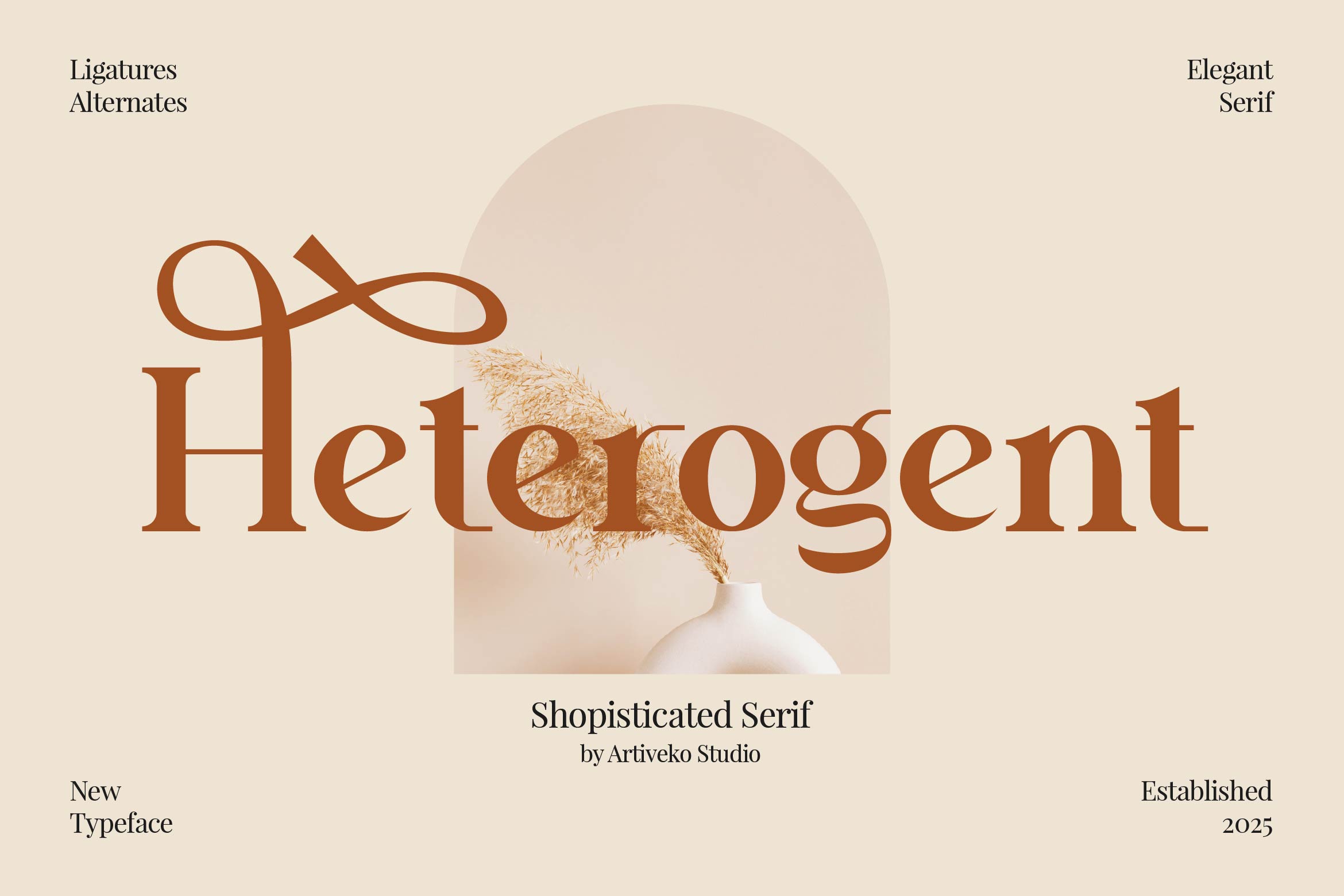
- Heterogent Luxury Serif Font
Heterogent is a refined serif font crafted to embody timeless elegance and high-class sophistication. With its high-contrast strokes, sharp serifs, and graceful proportions, Heterogent is perfect for luxury branding, fashion houses, editorial layouts, perfume packaging, wedding invitations, and statement logo design.
Its elegant structure balances modern minimalism with classic refinement, ensuring excellent readability while conveying exclusivity and prestige. Heterogent is designed for projects that demand a premium aesthetic — whether it’s an upscale magazine, luxury boutique, or creative identity system.
The font includes uppercase and lowercase letters, numerals, punctuation, multilingual support, ligatures, and stylistic alternates for versatile and expressive typography. Every detail has been carefully tuned to deliver polished results across print and digital applications.
Elevate your designs with Heterogent — a luxury serif font that defines sophistication, exclusivity, and timeless premium style.